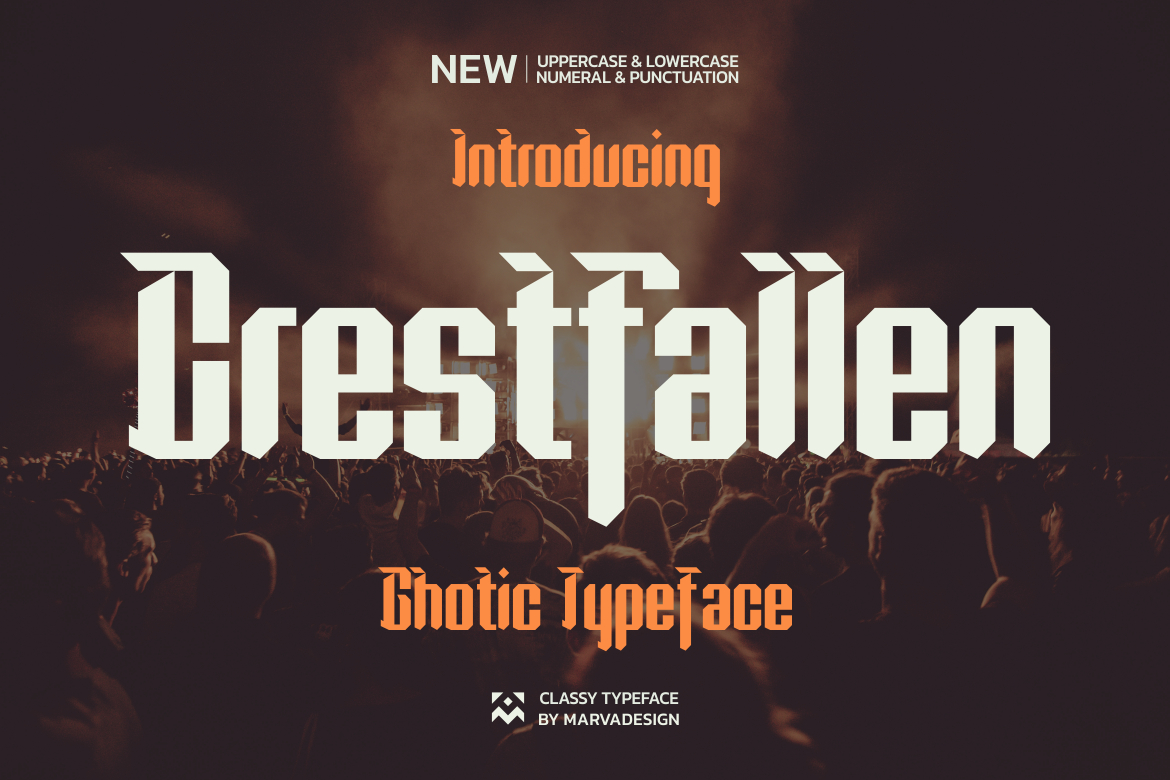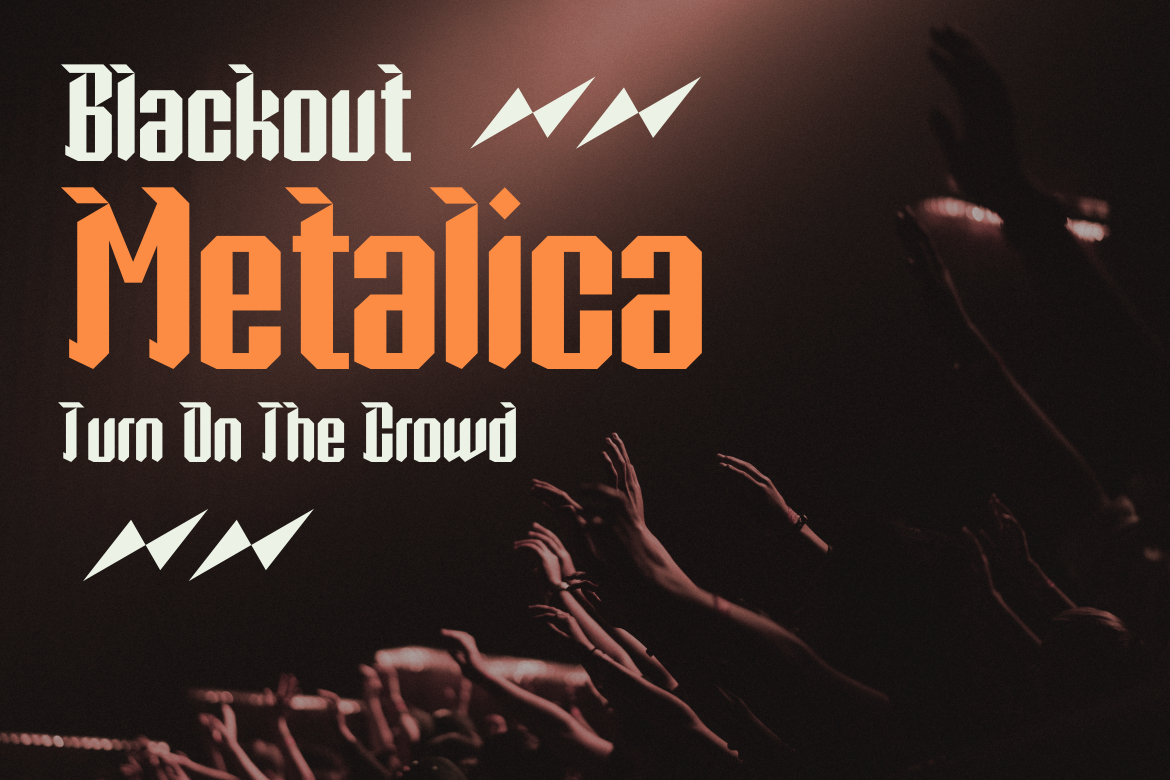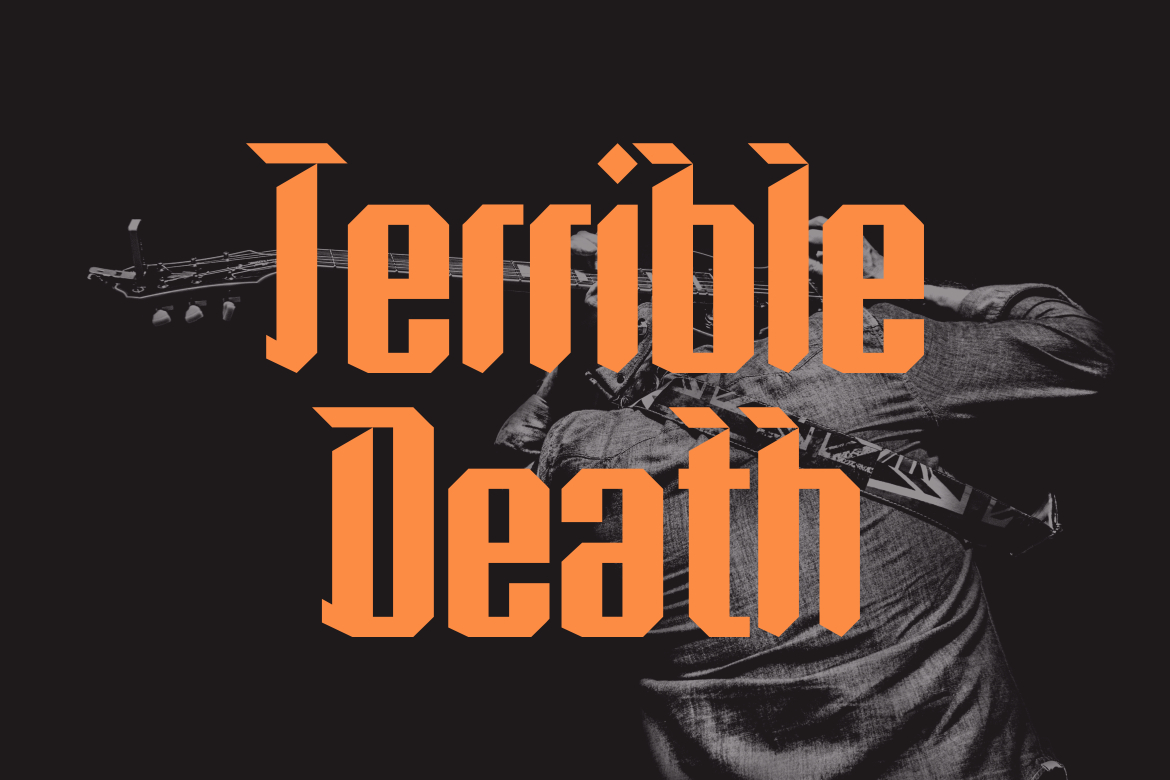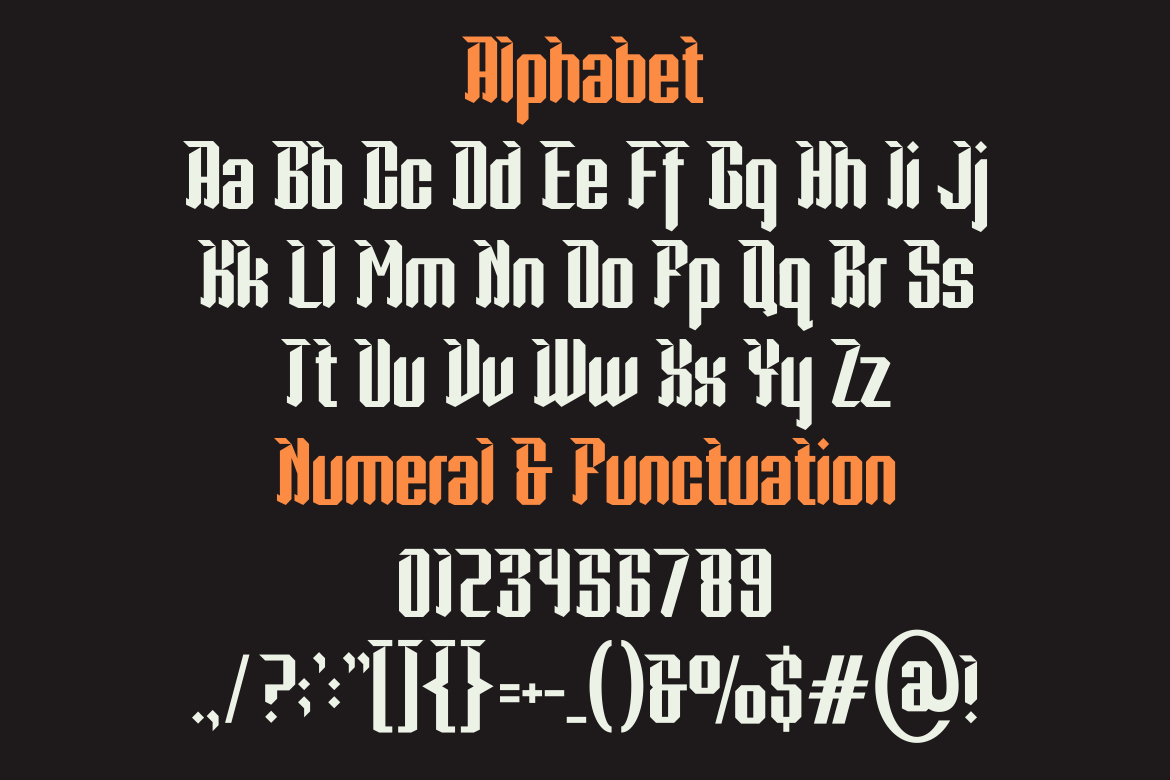
Crestfallen Font
About Crestfallen Font
Crestfallen is a modern blackletter font. This beautiful typeface is suitable for any branding project like logo, t-shirt printing, product, and many more. Outstanding in a wide range of contexts.